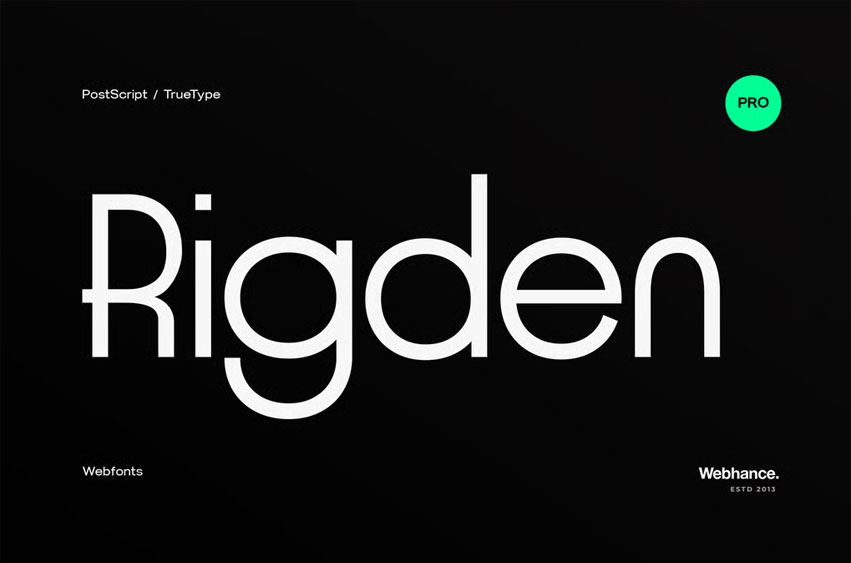
Rigden Font
Rigden Font is a modern sans-serif typeface crafted for elegance, clarity, and timeless sophistication. With its smooth letterforms, balanced proportions, and subtle curves, Rigden is ideal for editorial design, fashion branding, luxury packaging, and stylish digital interfaces.
Designed to reflect the grace and glamour of fashion culture, Rigden includes extended Latin support and a full set of accented characters (such as á, à, â, ä, é, è, ê, ë, and more), making it suitable for multilingual applications.
• Uppercase letters
• Lowercase letters